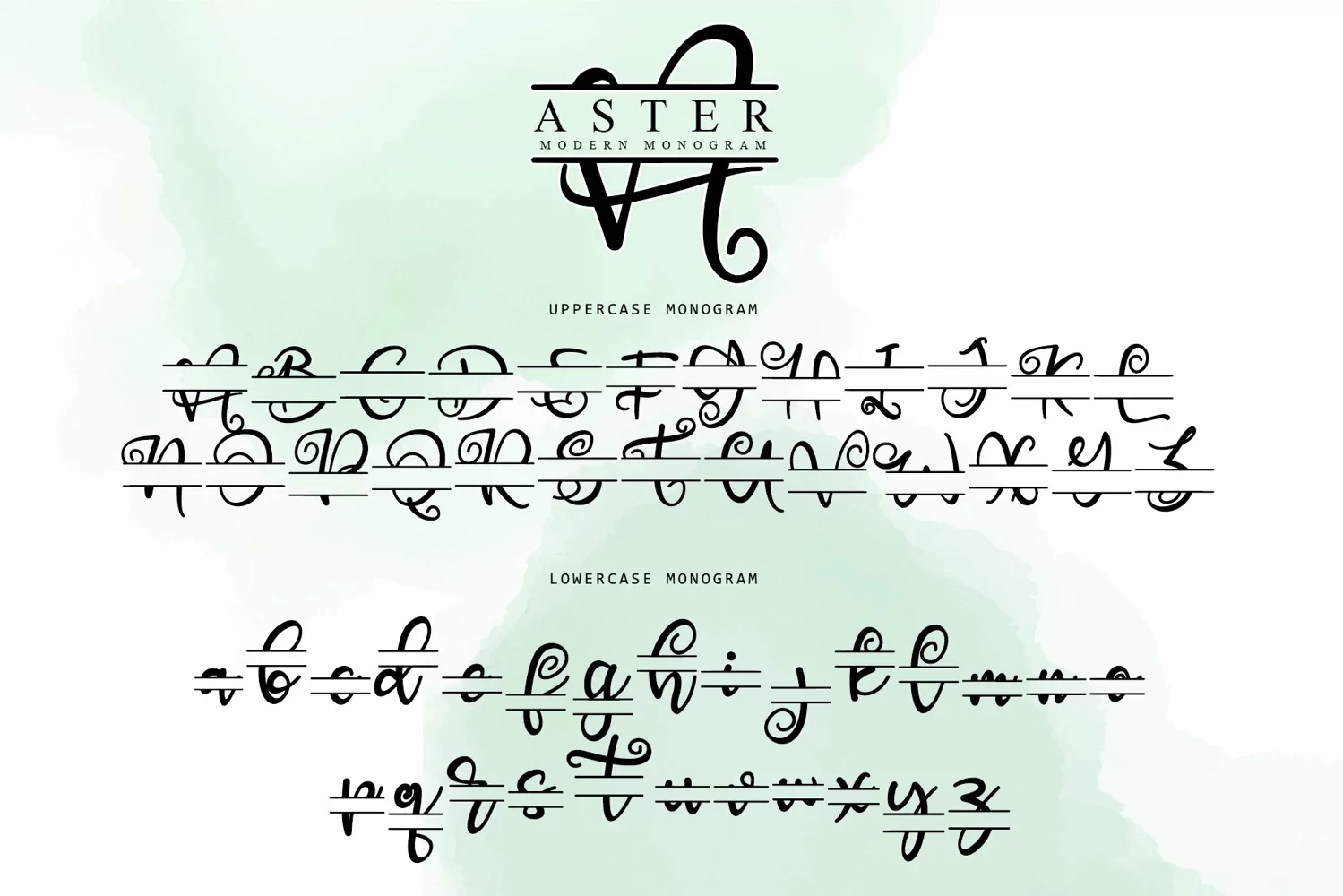
Aster Monogram is a beautiful Monogram font designed with an incredibly modern feel. Fall in love with its authentic feel and use it to create gorgeous wedding invitations, beautiful stationary art, eye-catching social media posts, and cute greeting cards. Use this gorgeous and unique Monogram font to bring any DIY project to life!